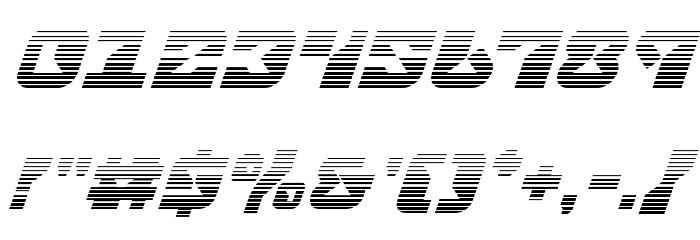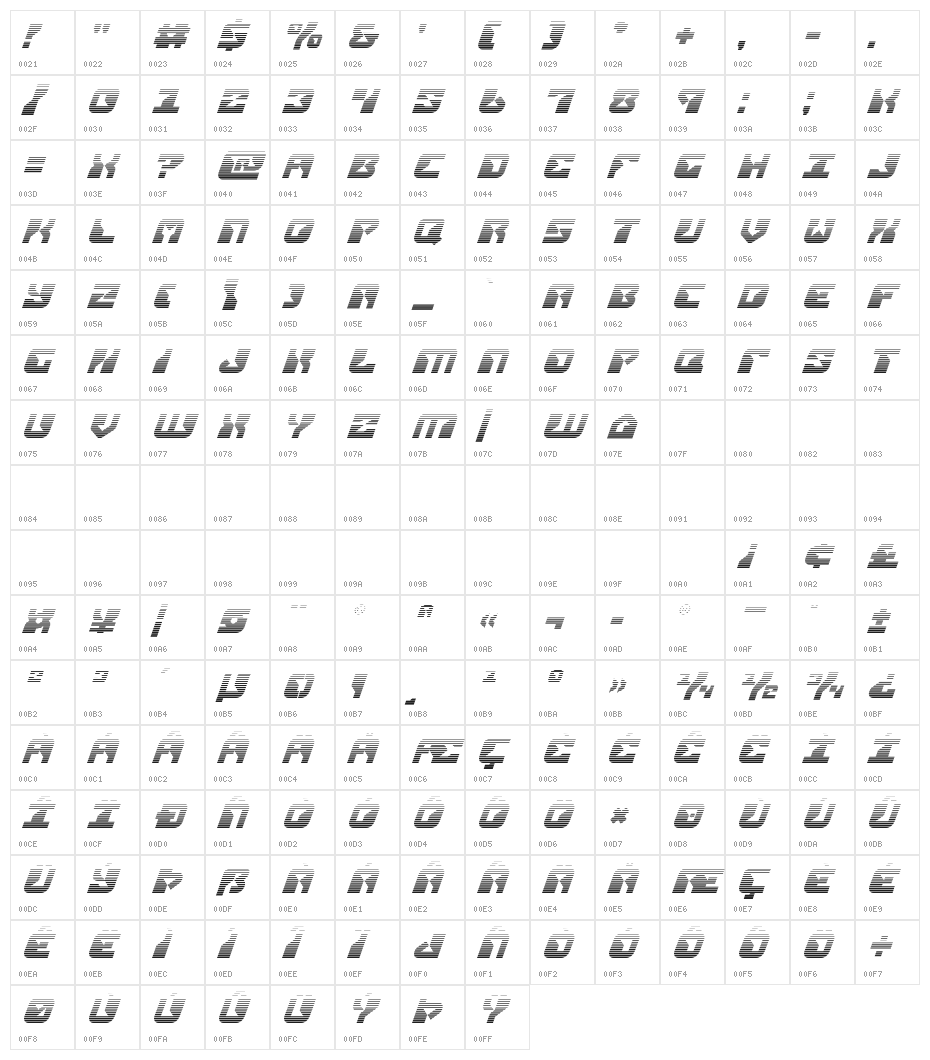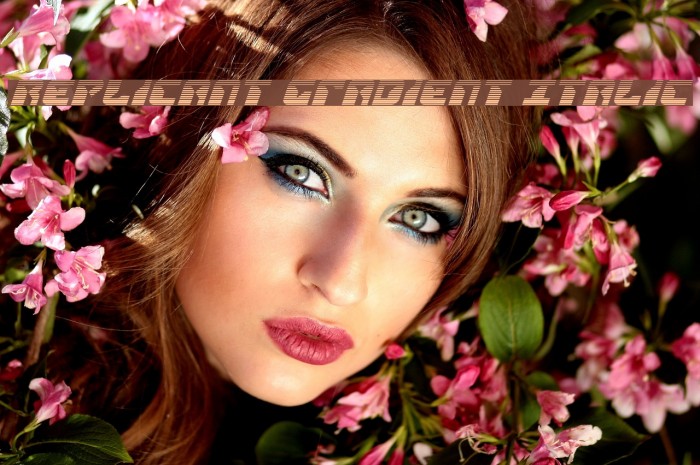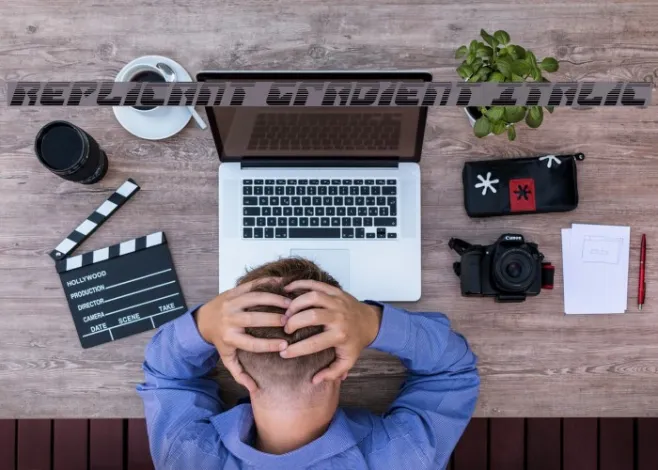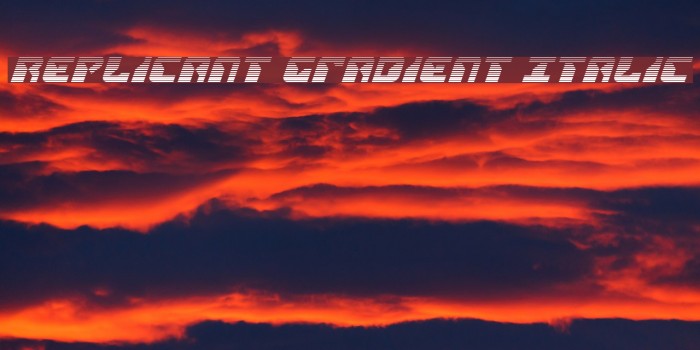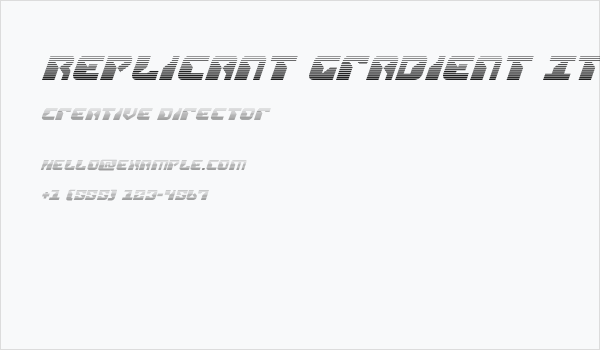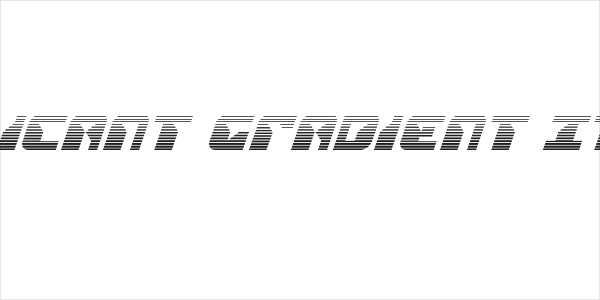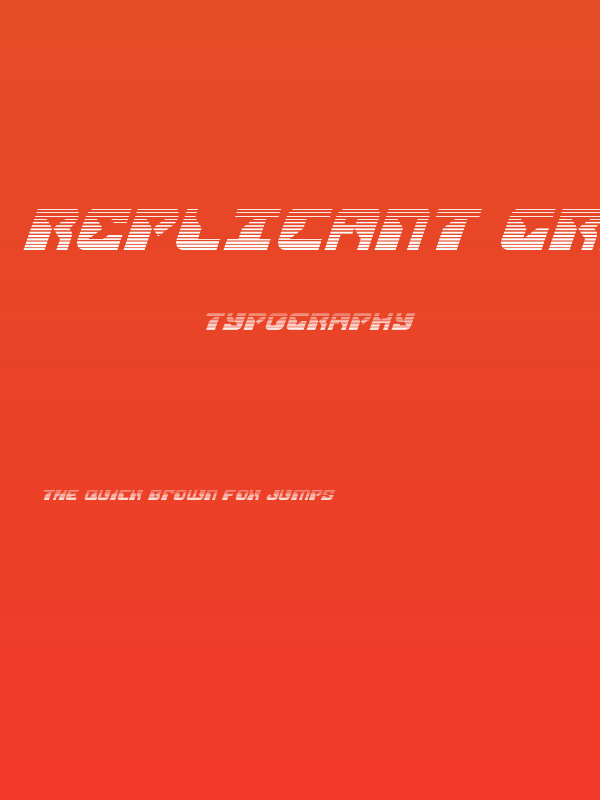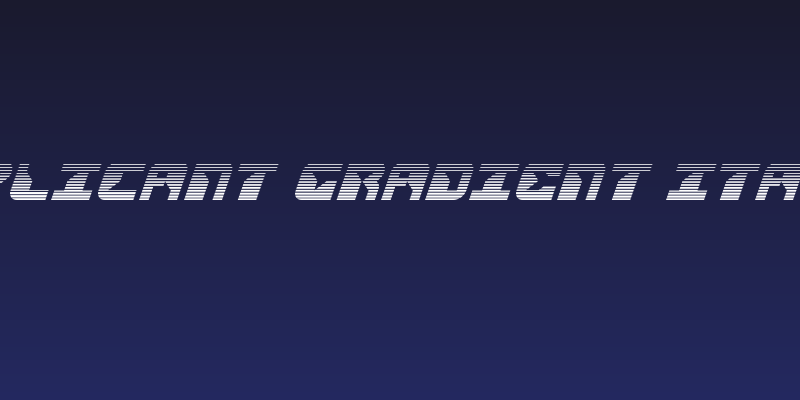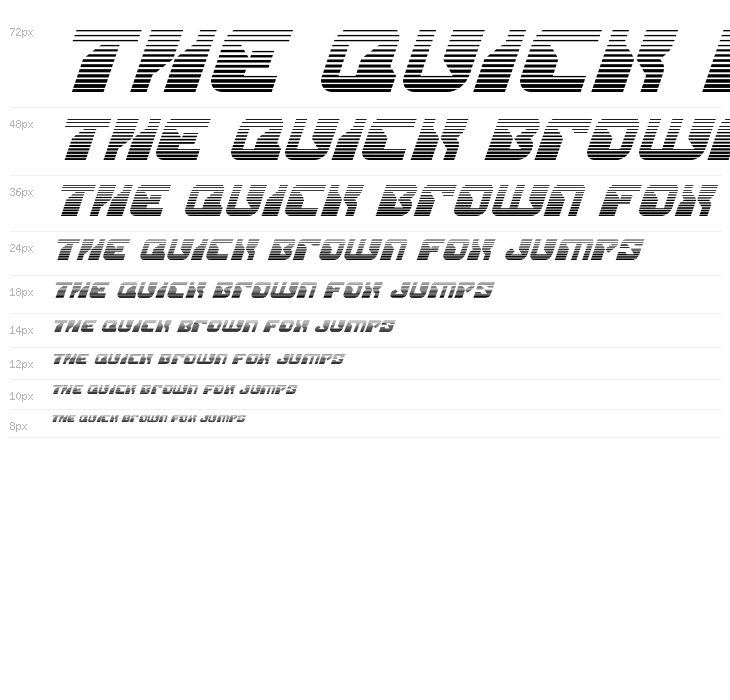
Replicant Gradient Italic Font
Replicant Gradient Italic Description
This font features a futuristic and dynamic design, characterized by its italicized and gradient-striped appearance. Each character is composed of horizontal lines that create a sense of movement and speed, making it ideal for modern and tech-oriented projects. The uppercase and lowercase letters maintain a consistent style, with sharp angles and a sleek, streamlined look. Numbers and special characters are equally stylized, ensuring a cohesive visual experience across all text elements.
| Proposed Projects | Ideal for sci-fi themed designs, tech branding, video game titles, and modern advertising. |